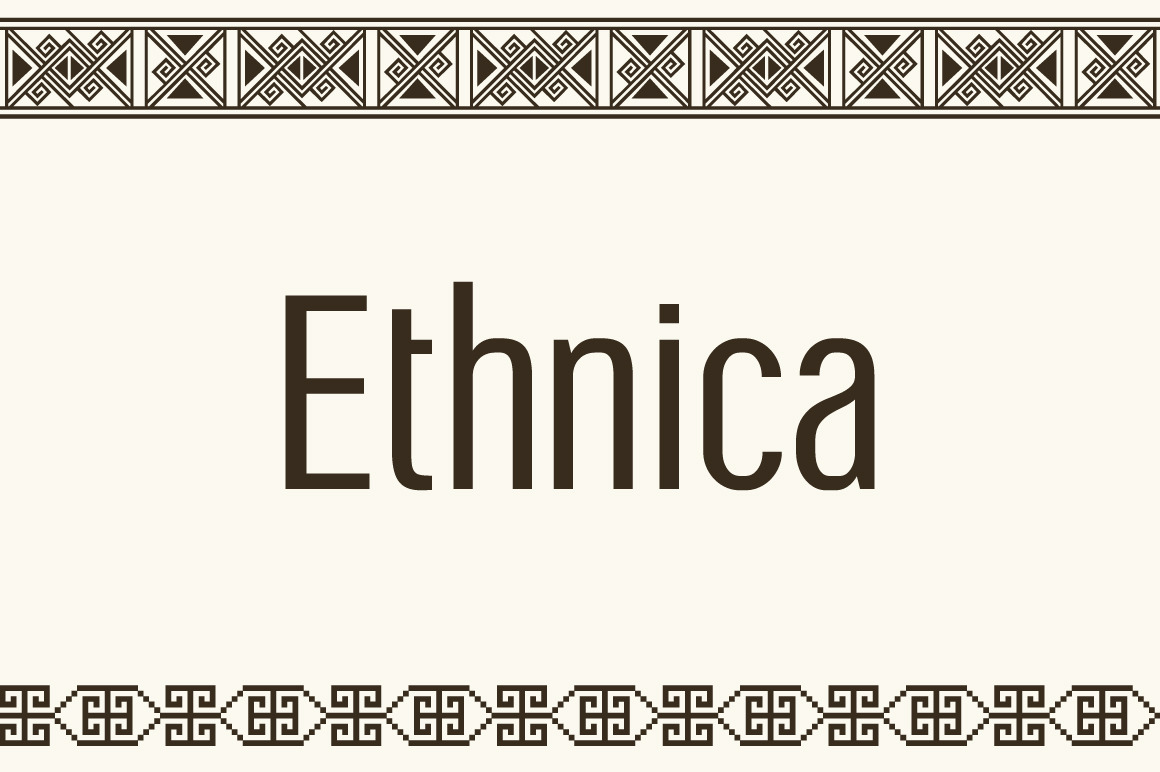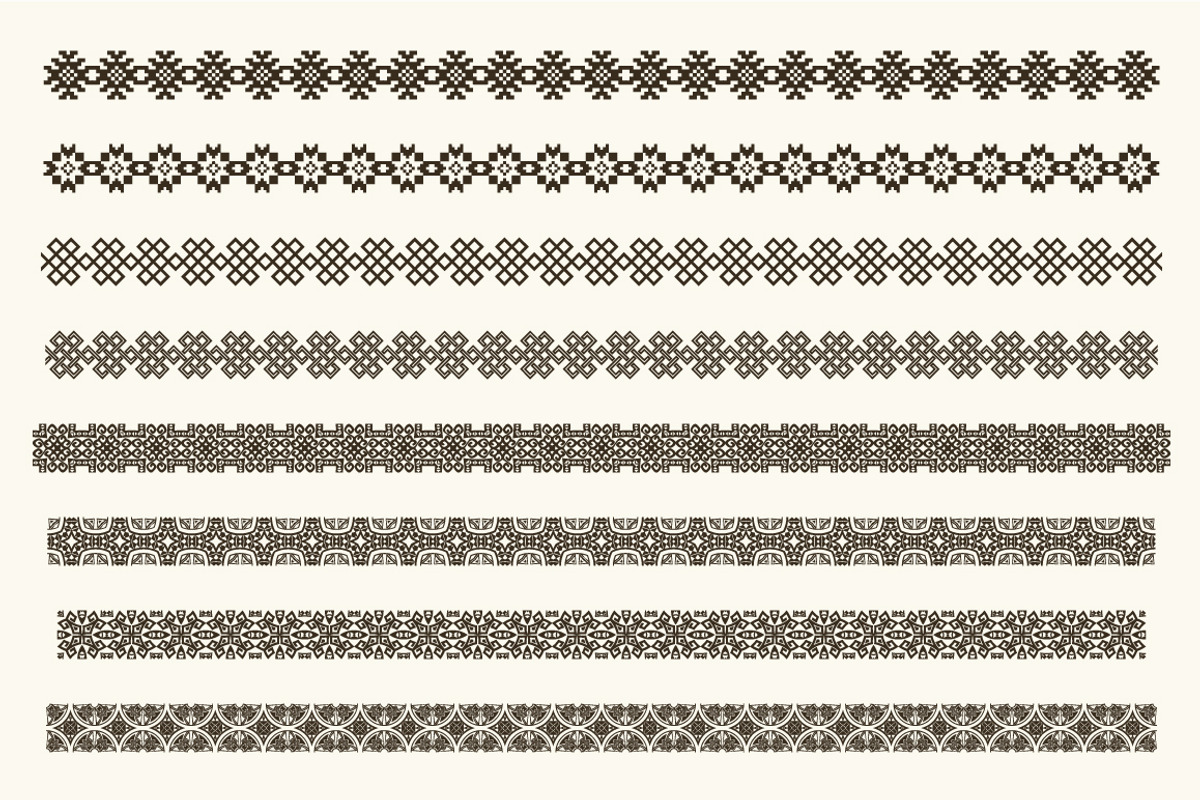
Symbol font Ethnica
Ethnica_sansletter.ttf is a collection of ornaments, available in font format.
The font includes 62 glyphs. Lowercase, uppercase and numbers.
-----------------------------This set is perfect to create borders -------------------------------
Simply type the same letter consecutively (i.e., aaa) and the pattern will emerge.